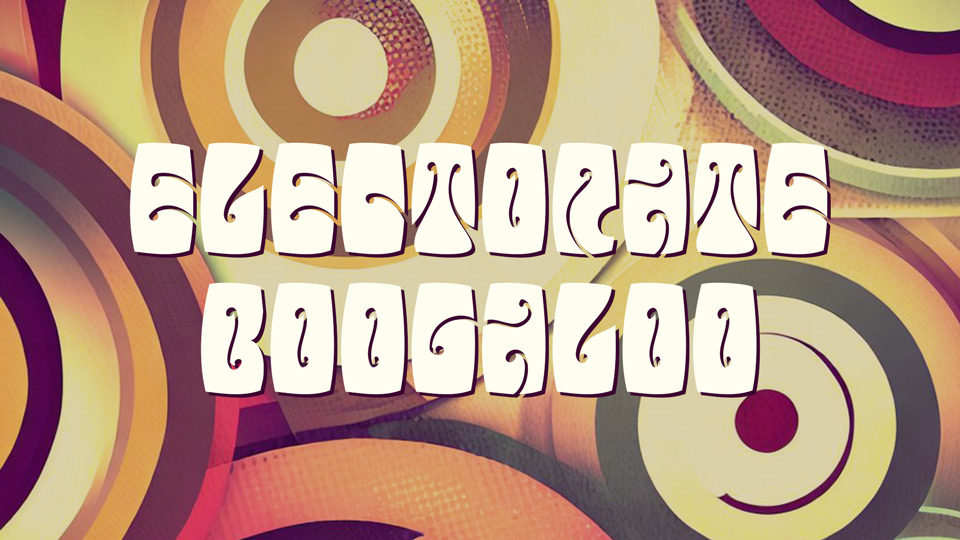
Download Electorate Boogaloo font, a retro display typeface that immerses you in a kaleidoscope of colors, patterns, and trippy vibes. Electorate Boogaloo font is all about creating designs that transport you to the time of flower power, peace, and artistic exploration.